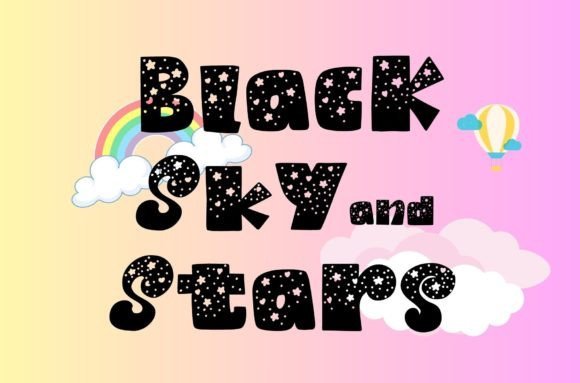
Unlock the Magic of Handwritten Charm with Black Sky and Stars Font
Remember that moment when you first saw a beautifully handwritten logo or a custom wedding invitation, and it instantly caught your attention? That’s the power of a well-designed handwritten font. For designers, finding the perfect font can make all the difference between a good design and a great one.
Introducing the Black Sky and Stars Font, a charming and versatile handwritten font that’s perfect for a wide range of creative projects. Whether you’re designing logos, branding, wedding invitations, or social media graphics, this font is sure to add a touch of whimsy and personality to your work. Its value lies in its adaptability and ability to elevate any design, making it a valuable addition to any designer’s toolkit.
Black Sky and Stars Font Key Features
- Unique Characteristics: The Black Sky and Stars Font features a unique blend of modern and vintage elements, with intricate star patterns and subtle texture effects that evoke a sense of celestial wonder.
Designer Review: Black Sky and Stars Font
✨ The first thing that caught my attention about Black Sky and Stars Font is its unique blend of modern and celestial elements. The font’s design is a perfect blend of clean lines, geometric shapes, and subtle textures that evoke a sense of mystique and wonder. The font is versatile and can be used in a variety of contexts, from posters and advertisements to digital products and branding.
✨ Another strength of Black Sky and Stars Font is its legibility. The font is highly readable, even at smaller sizes, making it an excellent choice for body text or long-form content. The font’s x-height is well-balanced, and the letterforms are clear and easy to distinguish.
- ⚠️ The font may not be suitable for very formal or traditional contexts, as its celestial theme may be perceived as unconventional.
- ⚠️ Some users may find the font’s texture and subtle gradient effects distracting, especially when used in large quantities.
Overall, Black Sky and Stars Font is a unique and captivating font that can add a touch of magic to your designs. While it may not be suitable for every context, it’s an excellent choice for projects that require a sense of wonder and adventure.
To get the most out of the Black Sky and Stars font, consider the following tips:
– Use it sparingly to create a dramatic effect.
– Pair it with other fonts to create contrast and visual interest.
– Experiment with different font sizes and colors to achieve the desired effect.
The Black Sky and Stars font is commonly used for:
– Creating dramatic titles and headings.
– Adding a touch of elegance to invitations and event materials.
– Designing logos and branding materials that require a sense of sophistication and luxury.